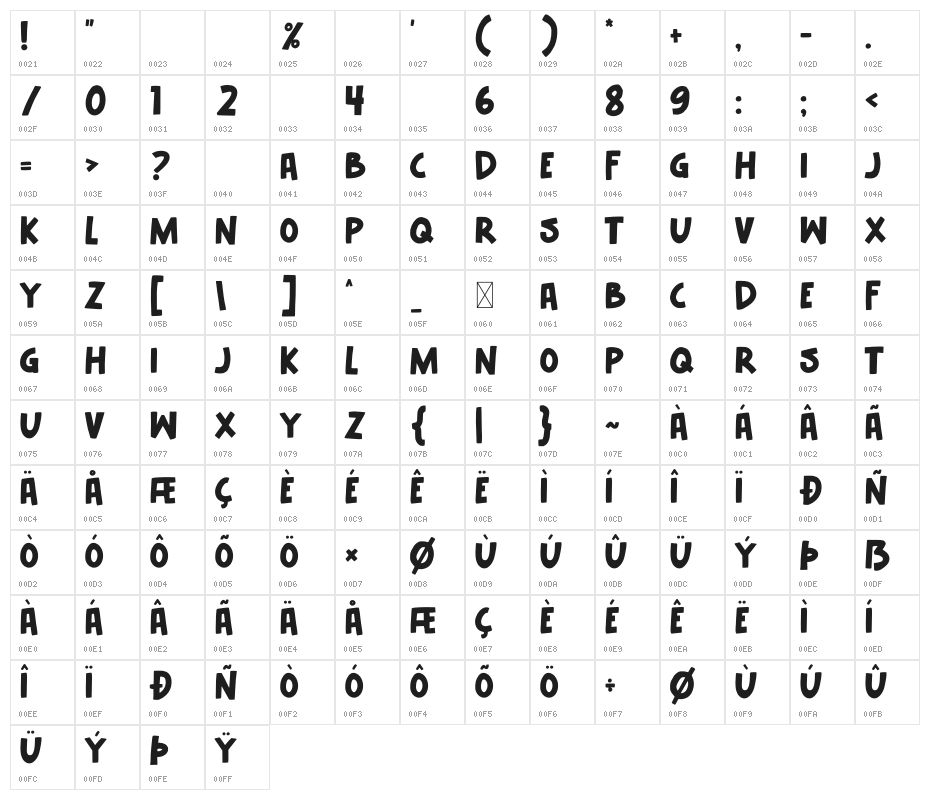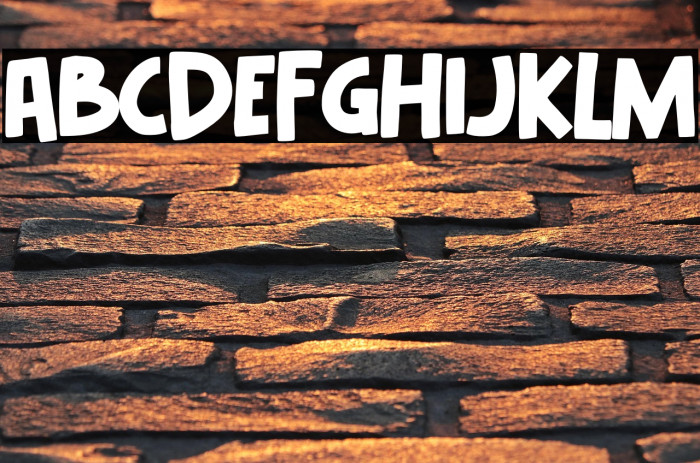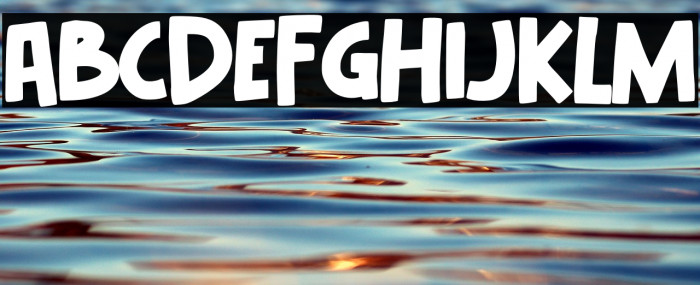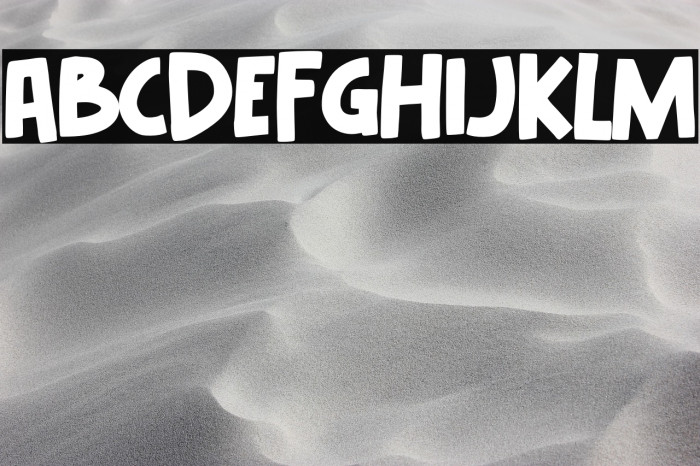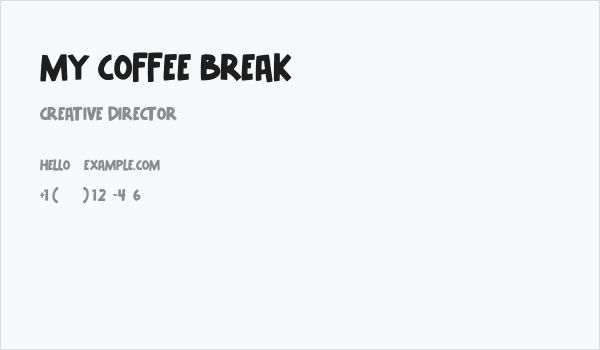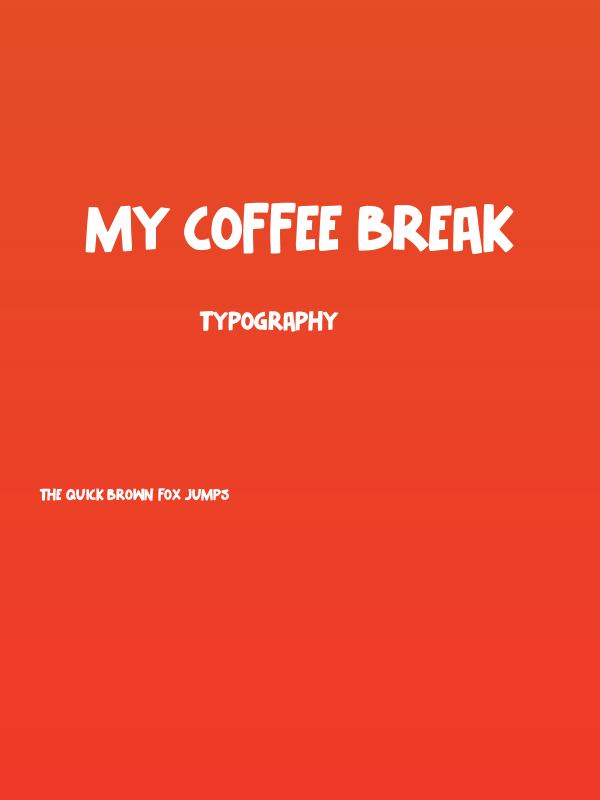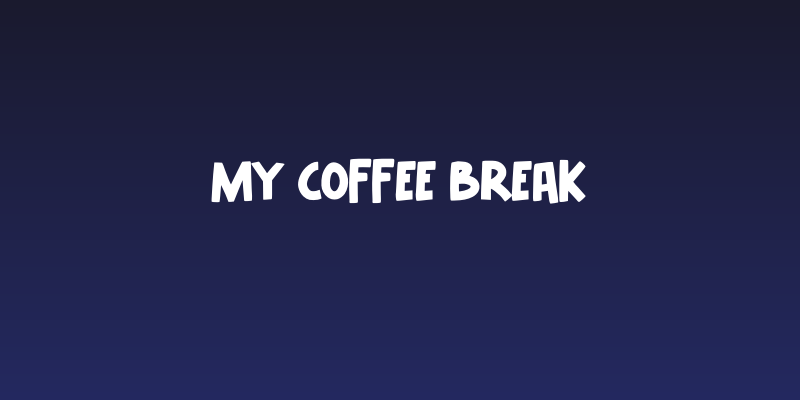
My Coffee Break Font
My Coffee Break Description
This font features bold, playful characters with a hand-drawn aesthetic. The letters are slightly irregular, giving a casual and friendly feel. The strokes are thick and consistent, contributing to a strong visual impact. The uppercase and lowercase letters maintain a cohesive style, with rounded edges and a slight tilt, enhancing the informal vibe. The numbers and special characters follow the same design principles, ensuring uniformity across the font. This style is ideal for projects that require a fun and approachable look.
| Proposed Projects | Perfect for children's books, playful branding, casual invitations, and social media graphics. |